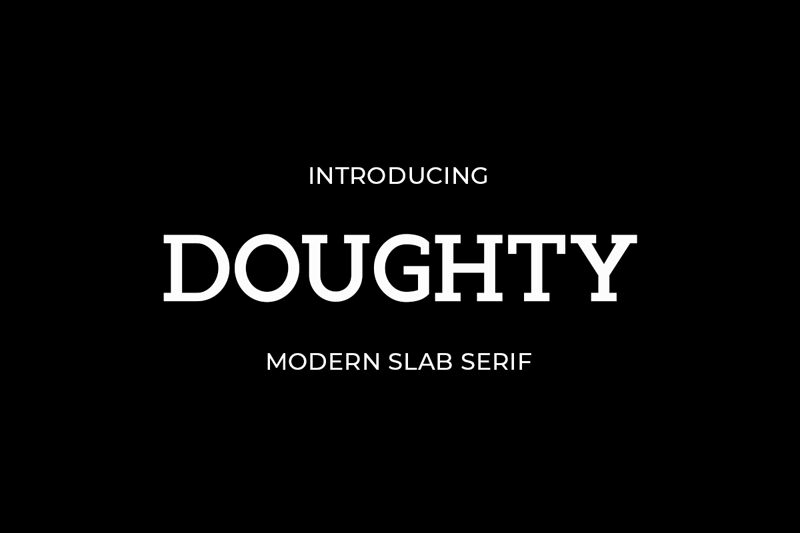
Doughty Bold font by Human Design is a slab serif that offers a classic look combined with modern sensibilities. It has a strong presence, authoritative character, and professional tone which can confidently display the titles and headlines of your artistic work. While this typeface gets its inspiration from old design styles, its applications for today’s context have multiplied.
Doughty